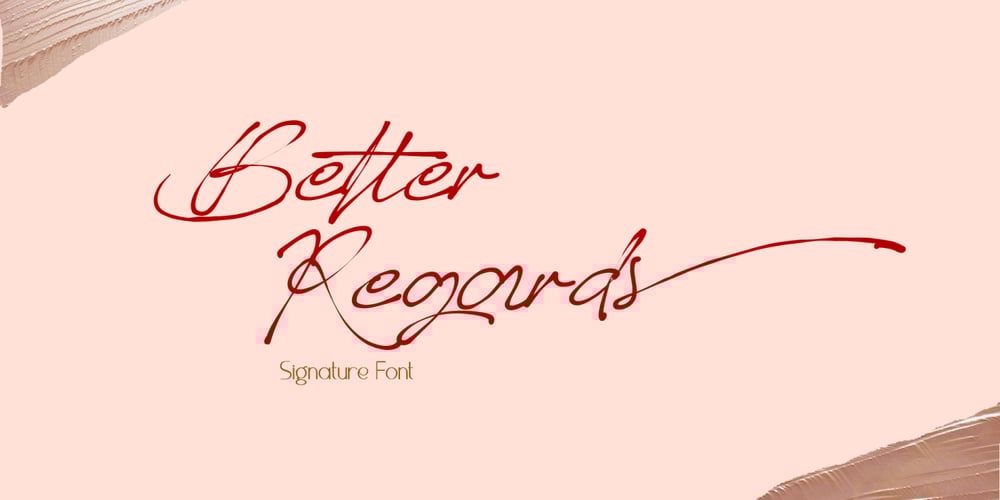
Better Regards Font Family was designed by Syukur Setiyadi and published by SSI.Scraps. Better Regards contains 1 styles and family package options. Better Regards is a very beautiful, simple and elegant signature font. It contains charming alternates. Enjoy its natural look!